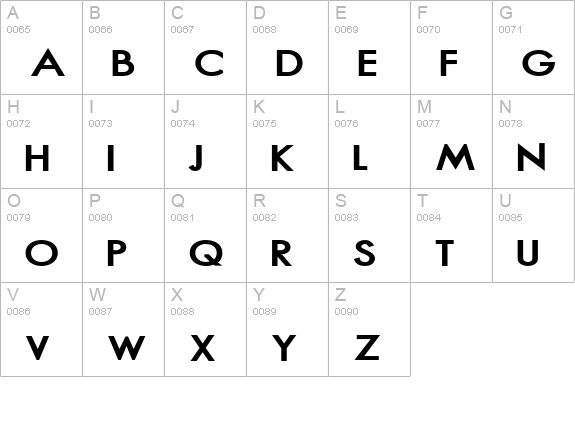
Magnus Font Details
Magnus font is a stunning typeface that exudes elegance and sophistication. With its clean lines and bold letterforms, this font is perfect for both headlines and body text. Its contemporary design makes it suitable for a wide range of projects, from branding and advertising to editorial and web design. The beauty of Magnus font lies in its versatility. Whether you want to create a luxurious logo or design a modern website, this font has got you covered. Its timeless appeal and timeless appeal make it a valuable asset for any designer. And the best part? Magnus font is free! That's right, you can freely download this amazing typeface at FontsMarket.com. This means that you can add a touch of class to your designs without breaking the bank. Say goodbye to expensive font licenses and hello to unlimited creative possibilities. With its extensive character set and various weights, Magnus font offers endless choices for customization. Whether you prefer a bold and impactful look or a more delicate and refined style, this font allows you to achieve your desired aesthetic effortlessly. So why wait? Download Magnus font today and elevate your designs to new heights. With its impeccable craftsmanship and timeless appeal, this font is sure to make a lasting impression. Don't miss out on the opportunity to add this gem to your font collection. Get your hands on Magnus font and let your creativity soar.